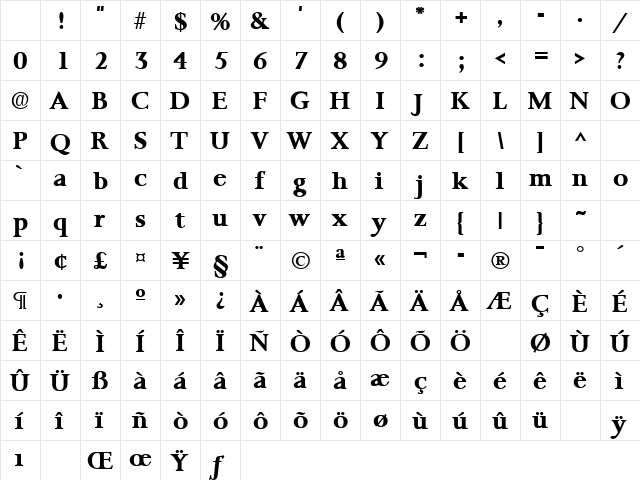
Complete Palermo SF Bold glyph index. Displaying only characters natively supported by Palermo SF Bold font.
Palermo SF is a composed and adaptable typeface that performs quietly and consistently across a wide range of design contexts. Its bold stroke weight gives it real presence on the page.